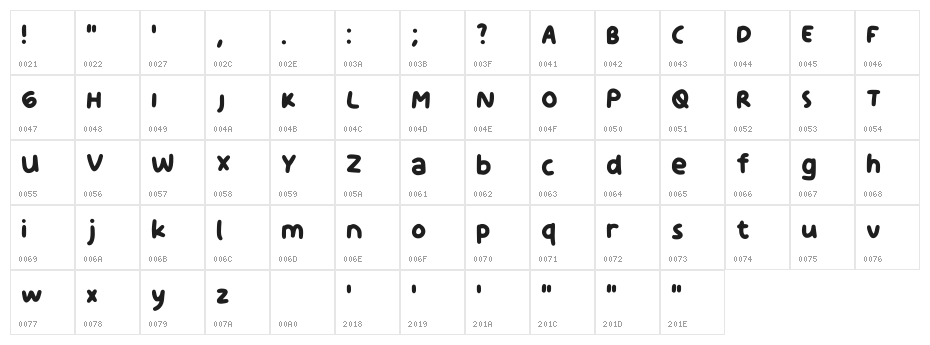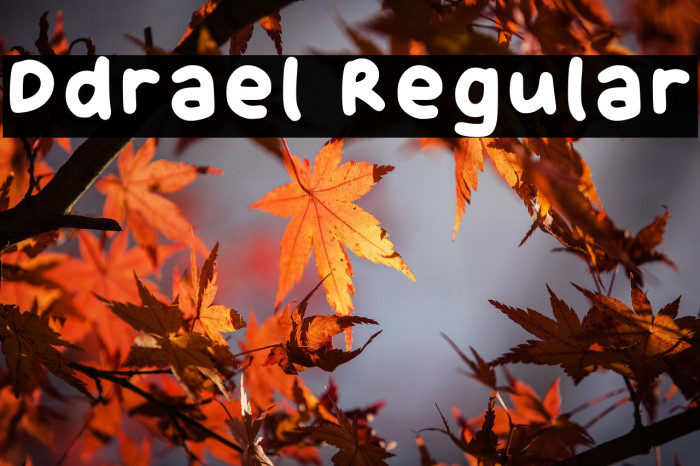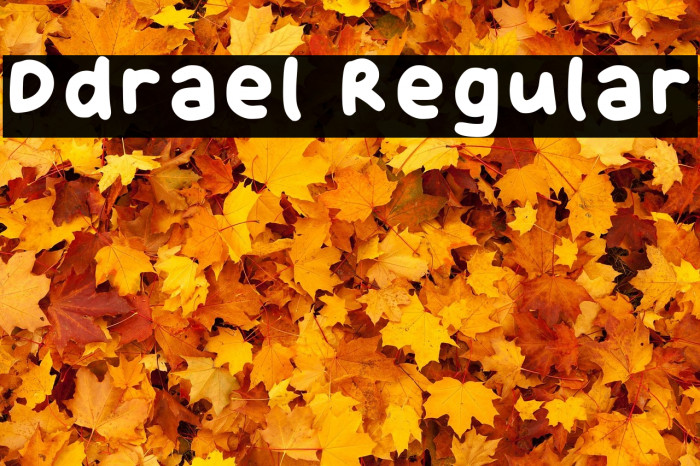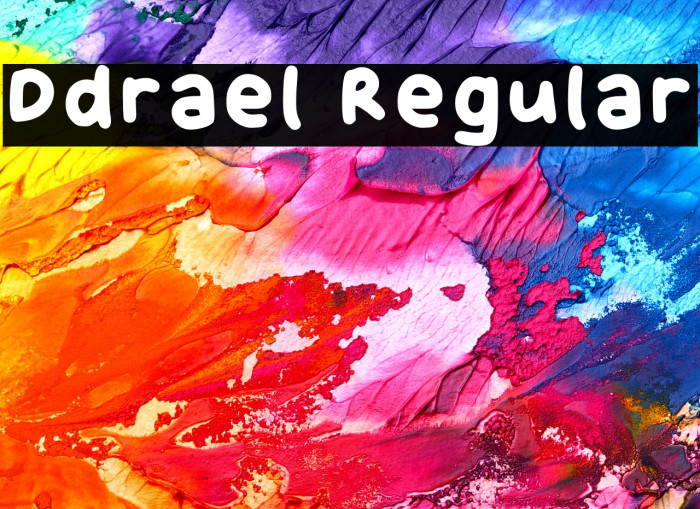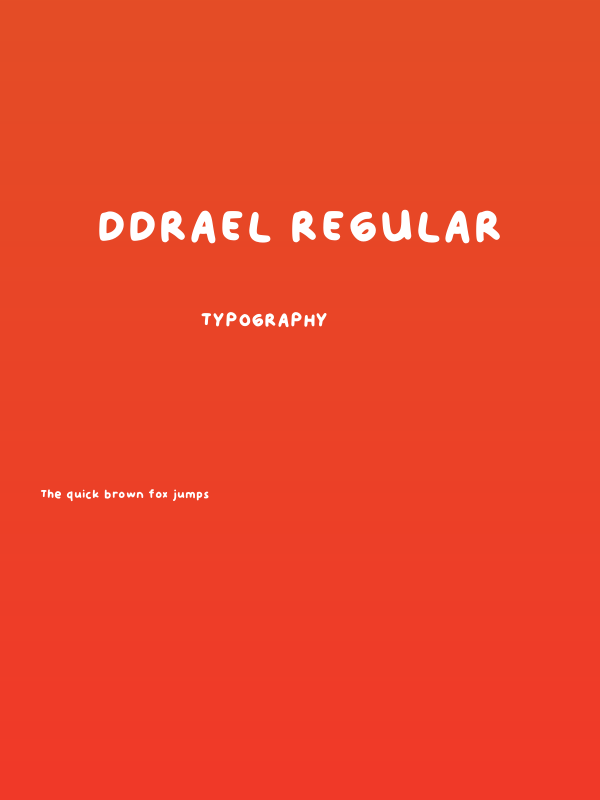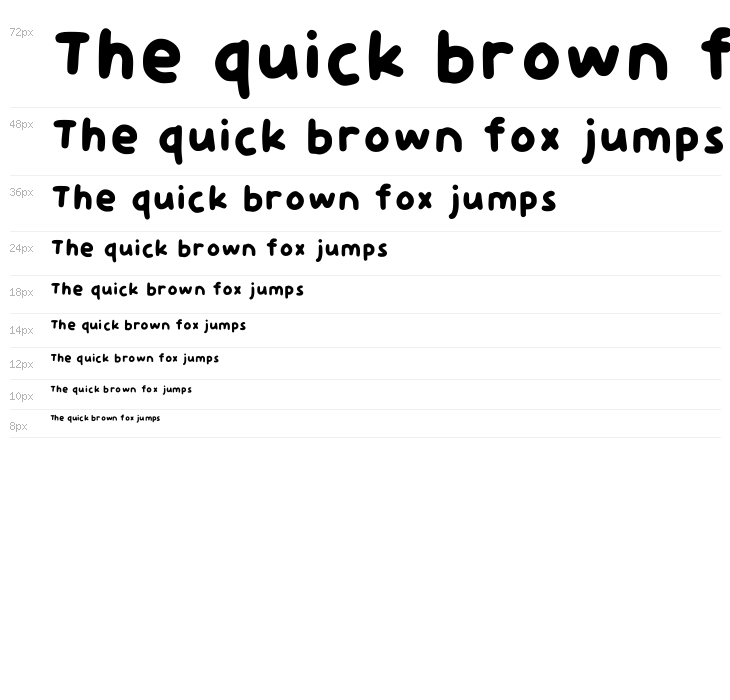
Ddrael Regular Font
Ddrael Regular Description
This playful and rounded font exudes a friendly and approachable vibe, with its smooth curves and slightly irregular shapes. The characters are bold and have a consistent thickness, giving them a strong presence on the page. The font maintains a casual and informal style, making it ideal for projects that require a touch of whimsy and creativity. Its legibility is high, even at smaller sizes, due to the clear distinction between each letterform. The overall design is simple yet effective, with a modern twist that can appeal to a wide audience.
| Proposed Projects | Children's books, playful branding, casual invitations, and creative posters. |